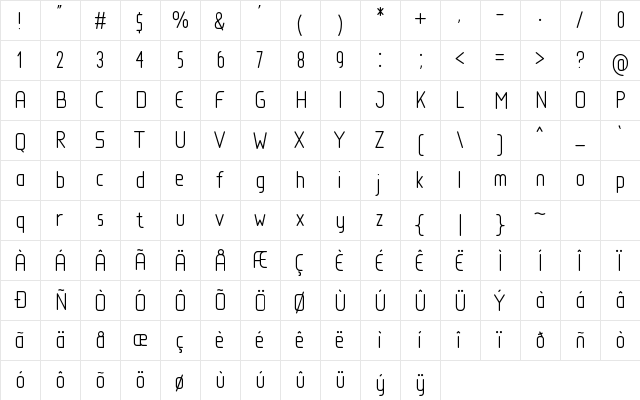
Loja Light Regular
| Designer | AmruID |
Design Context for Loja Light Typeface
Loja Light is a composed and adaptable typeface that performs quietly and consistently across a wide range of design contexts. Its slender proportions lend an understated elegance to any composition.